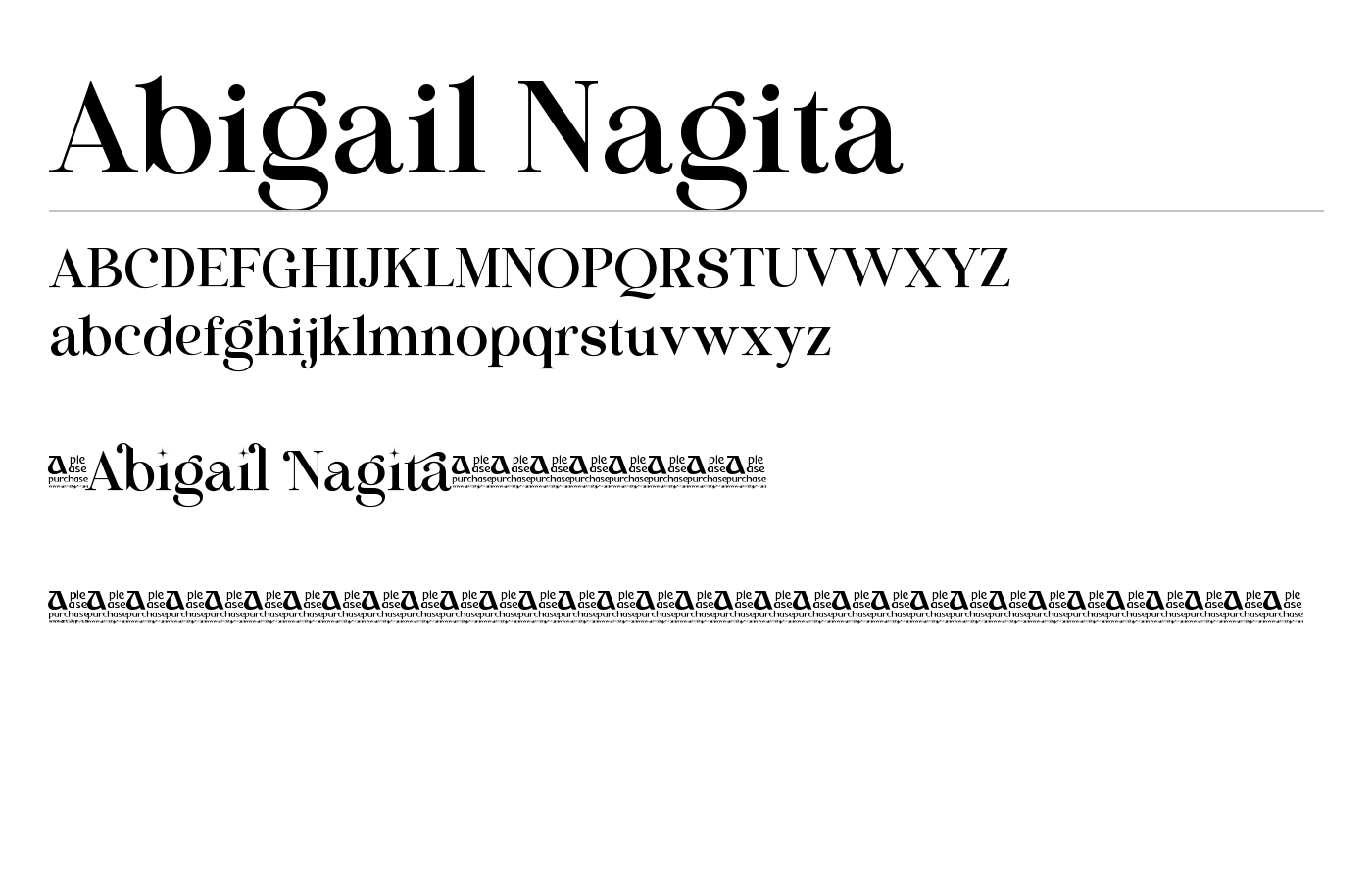
Abigail Nagita is a sophisticated serif font with a modern Didone style characterized by high contrast between thick and thin strokes and elegant, sharp serifs. Its refined letterforms, including unique details like the curved tail on the Q and distinctive ampersand, give it a luxurious and stylish personality, making it perfect for fashion branding, editorial headlines, and upscale packaging. This font brings a sense of elegance and professionalism, ideal for designs that require a touch of grace and modern classic appeal.
Abigail Nagita Font
About Abigail Nagita Font
| Font family | Abigail Nagita Font |
| Designer | Chairul Ma'arif |
| Trademark | ArtchiType Studio |